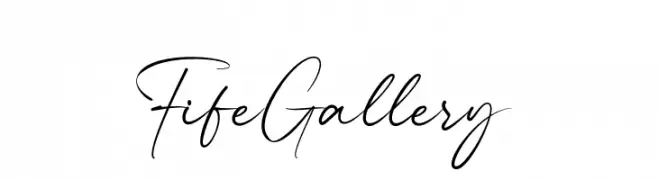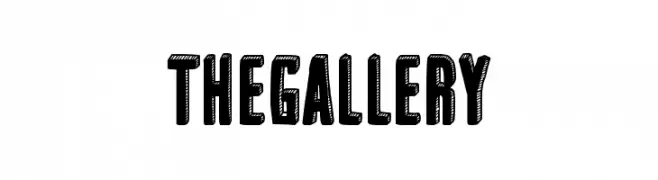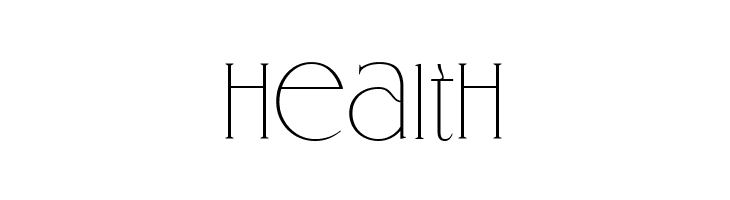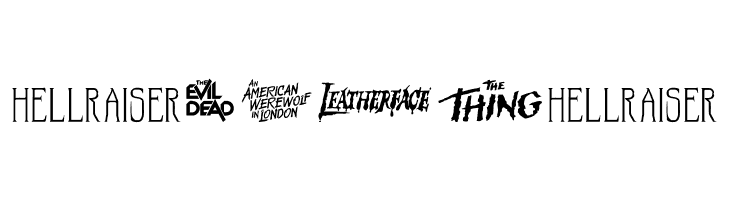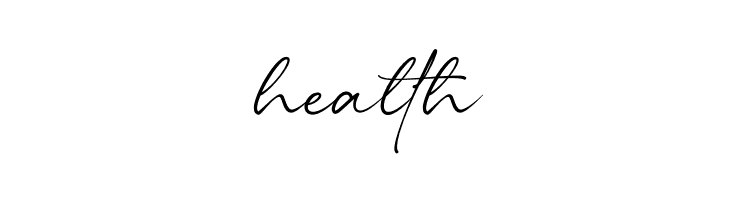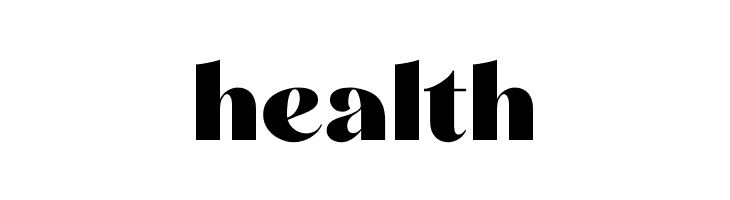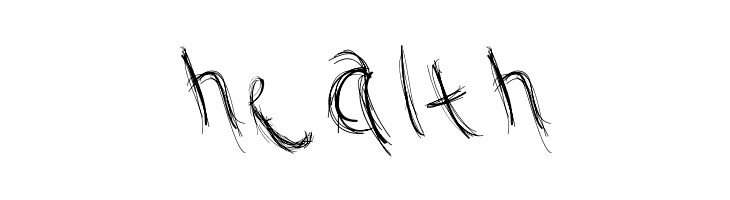
A bold, playful font with rounded, whimsical characters.
A bold, expressive font with a playful, hand-drawn style.
A playful, mustache-themed font with a whimsical and creative design.
A bold, decorative font with a hand-drawn, textured style.
A graceful script font with fluid, connected strokes and elegant curves.
A modern, elegant font with high contrast and sleek, elongated strokes.
A diverse set of horror-inspired decorative display fonts with dramatic and eerie styles.
A sophisticated, elegant handwritten script with fluid strokes.
A bold, high-contrast font with a modern and decorative style.